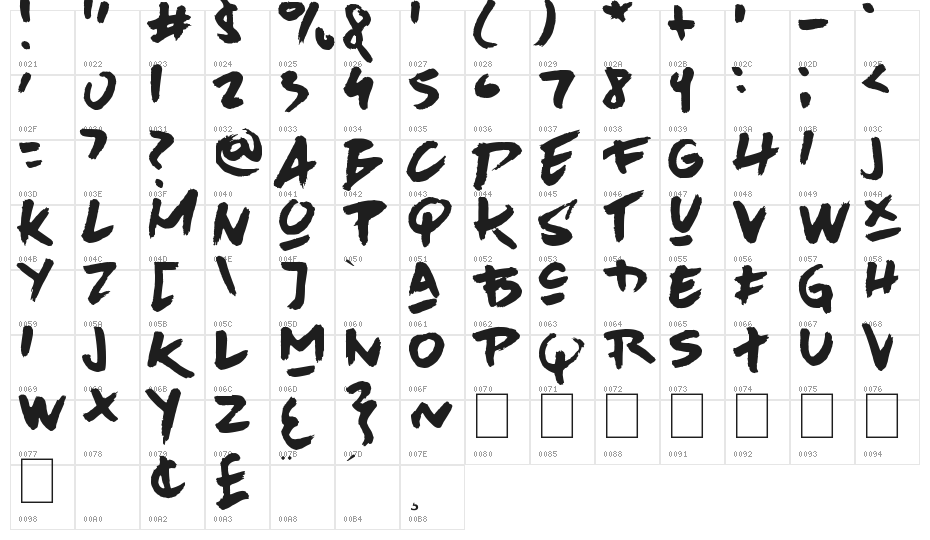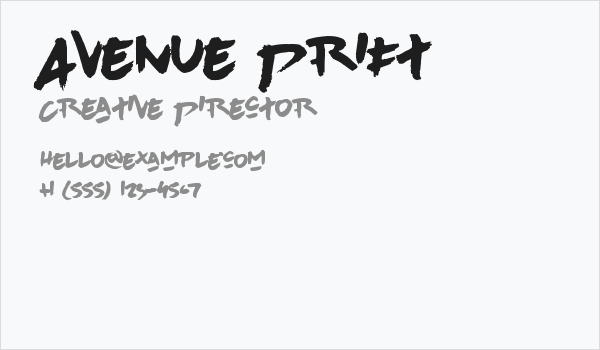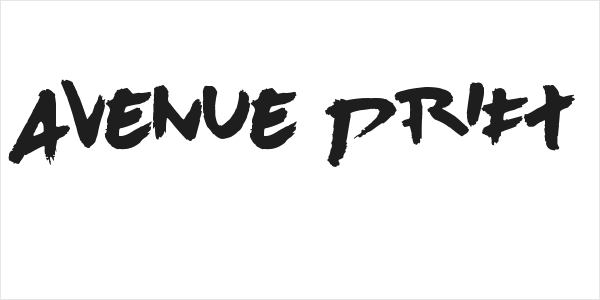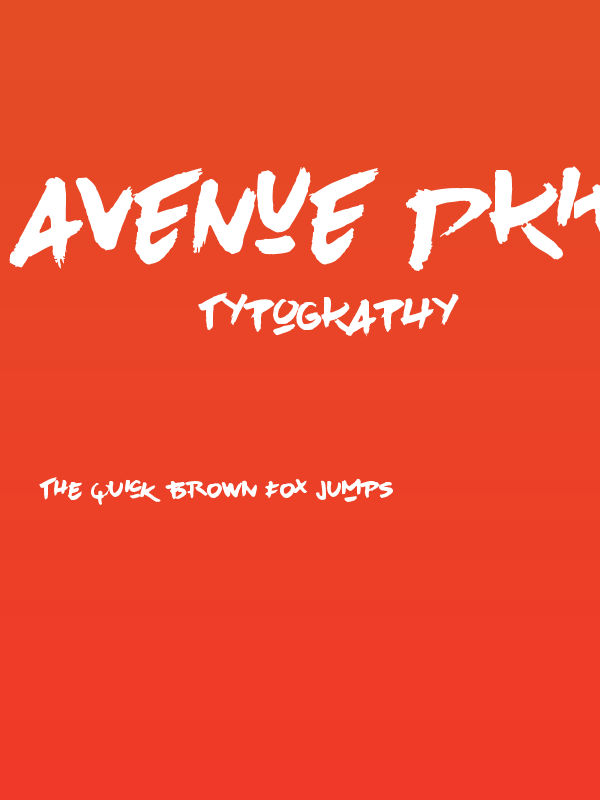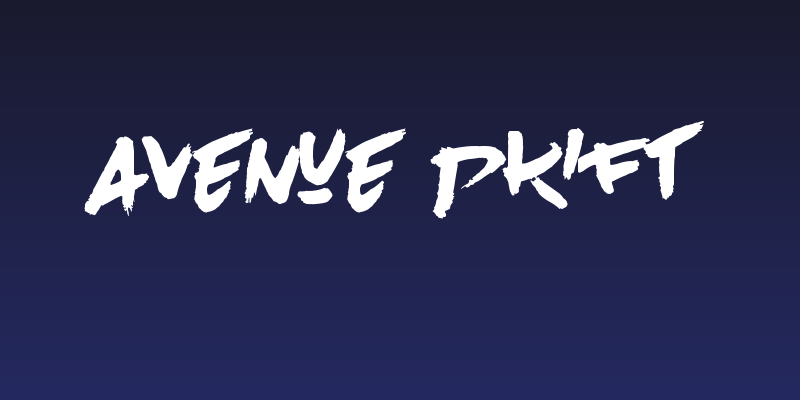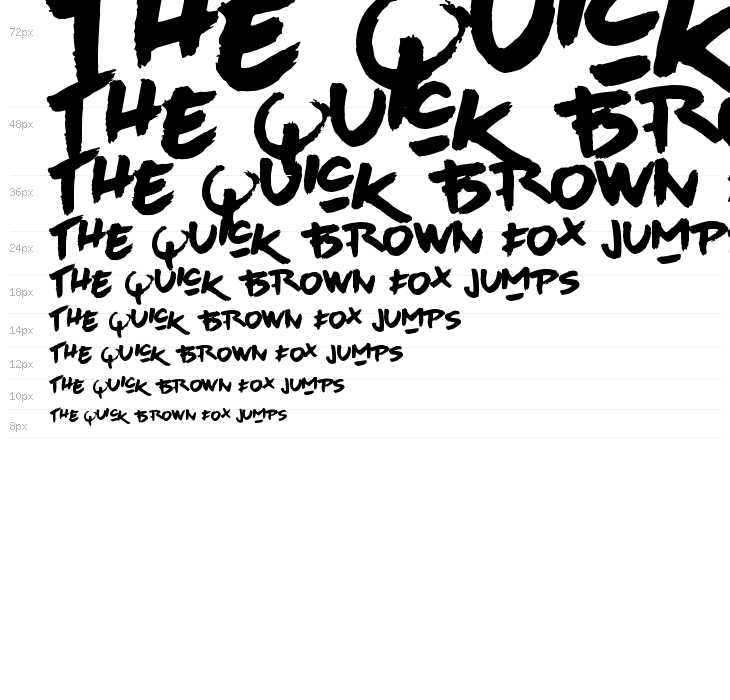
Avenue Drift Font
Avenue Drift Description
This font exudes a bold and energetic style, characterized by its brush-like strokes and dynamic movement. The letters are crafted with a sense of urgency and flair, resembling hand-painted signage or graffiti art. Each character is unique, with varying thickness and angles, creating a lively and informal appearance. The uppercase and lowercase letters maintain a consistent style, while the numbers and special characters add to the overall expressive nature of the font. This typeface is perfect for projects that require a strong visual impact and a sense of creativity.
| Proposed Projects | Ideal for street art designs, music album covers, event posters, and branding that requires a bold statement. |